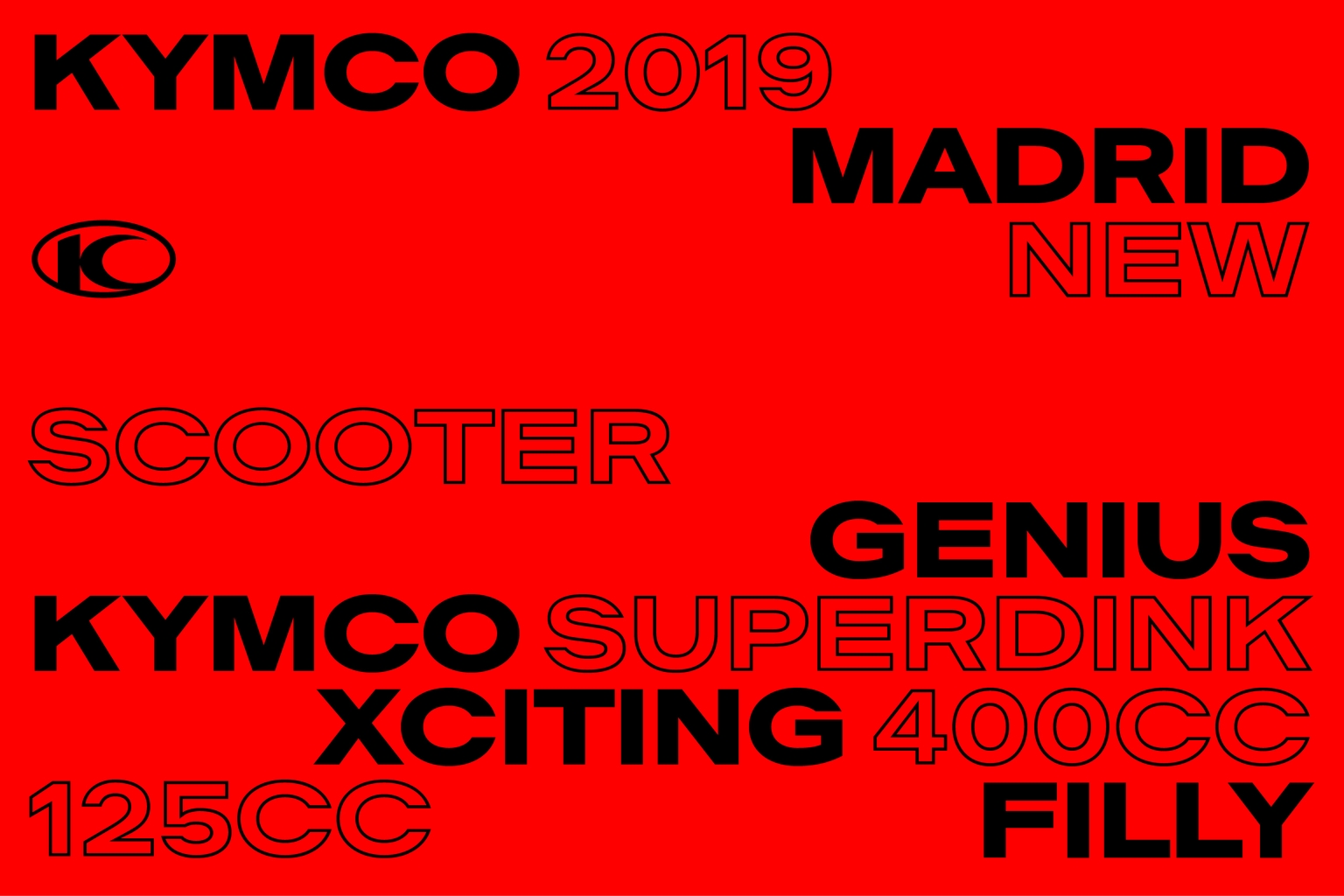
Kymco
Commission
Pràctica Design
Client
Kymco Spain
Year
2019
Display font created for the motorcycle company KYMCO Spain. The alphabet is based on the five letters of the logotype. Two styles, solid and outline, were developed to solve all the communication needs.